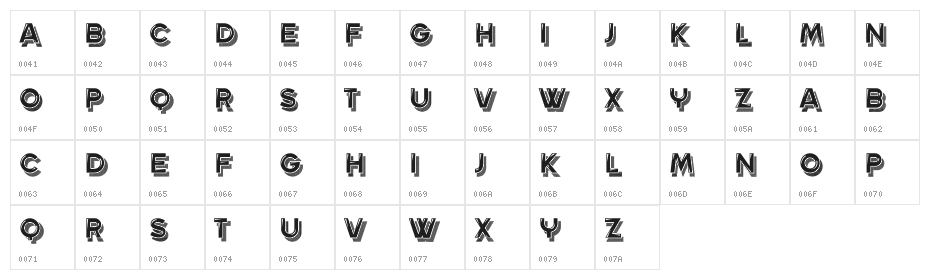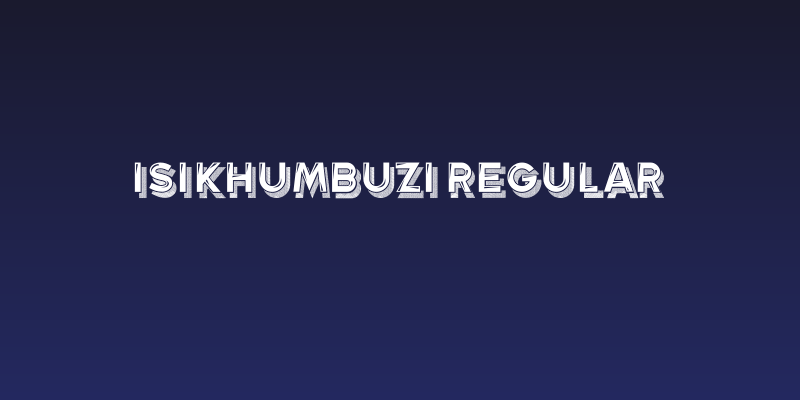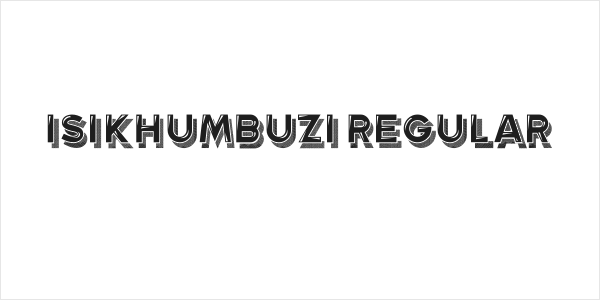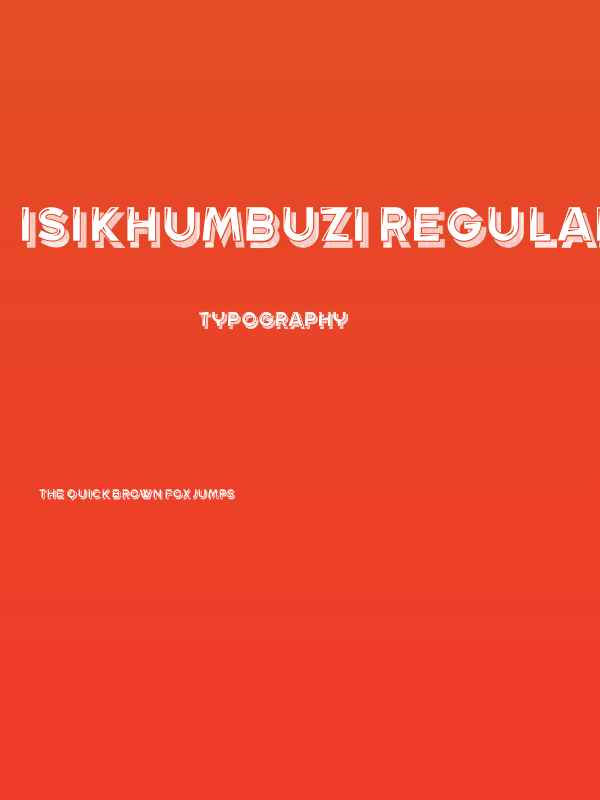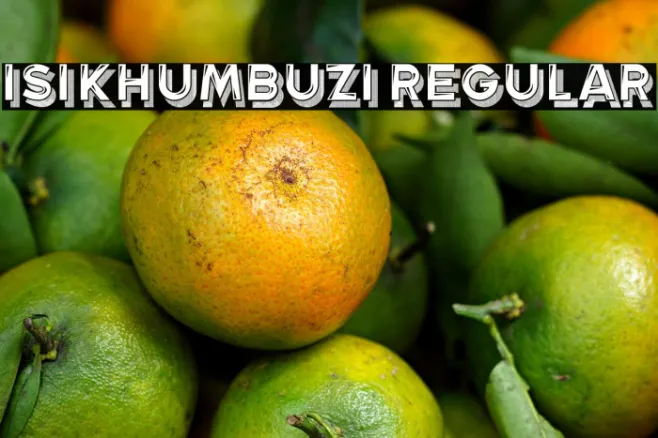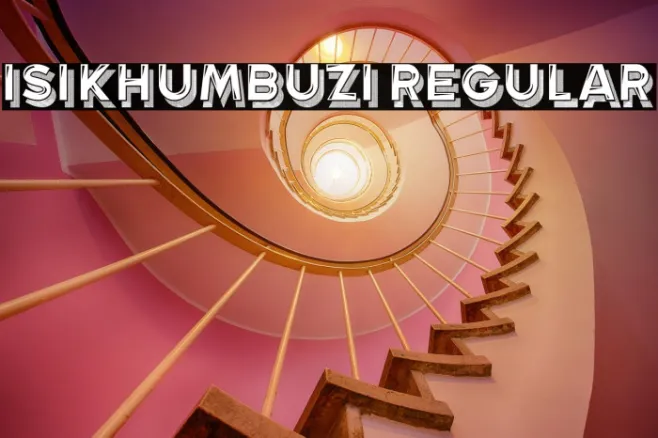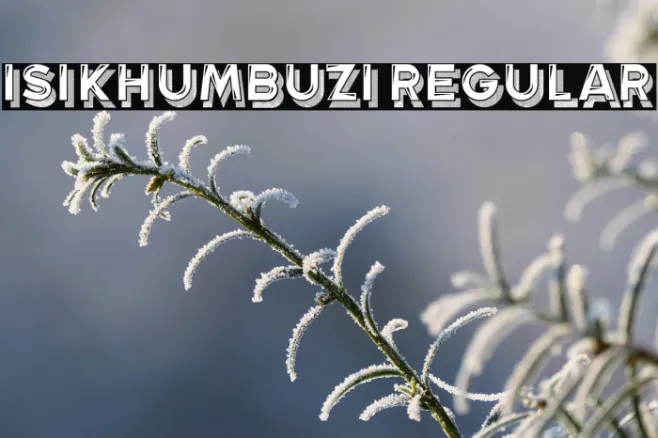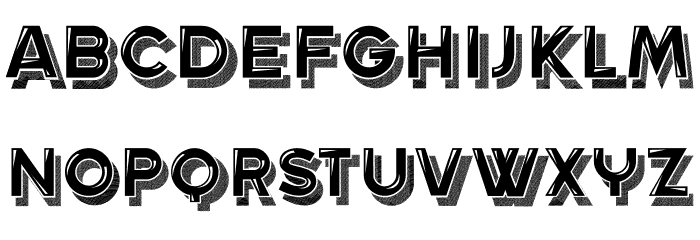
Isikhumbuzi Regular Font
Isikhumbuzi Regular Description
This font features a bold, three-dimensional design with a distinct shadow effect that gives it a striking, layered appearance. The uppercase letters are crafted with precision, showcasing a modern and dynamic style. The font's geometric structure is complemented by its decorative elements, making it ideal for attention-grabbing headlines and titles. The shadowing adds depth and a sense of movement, enhancing its visual impact. Its unique style is both contemporary and versatile, suitable for a variety of creative projects.
| Proposed Projects | Ideal for posters, logos, headlines, and any project requiring a bold, impactful typeface. |